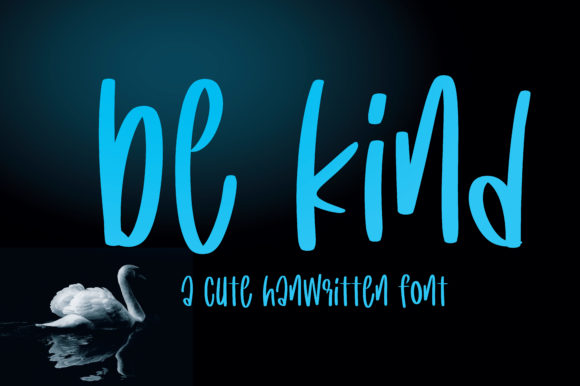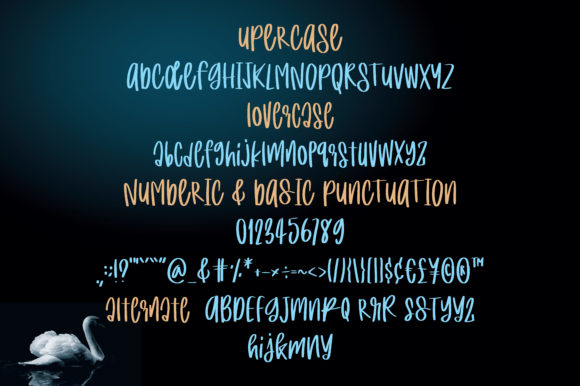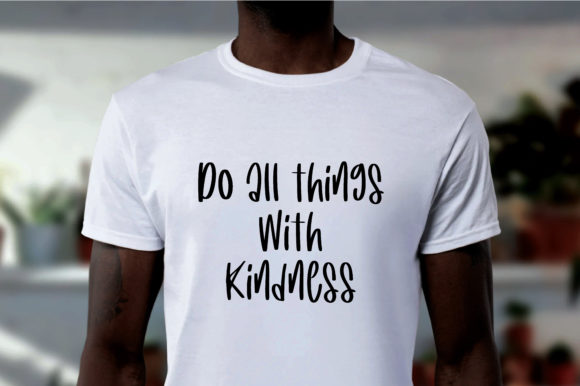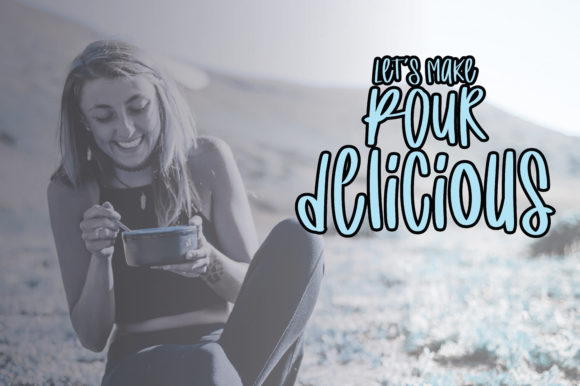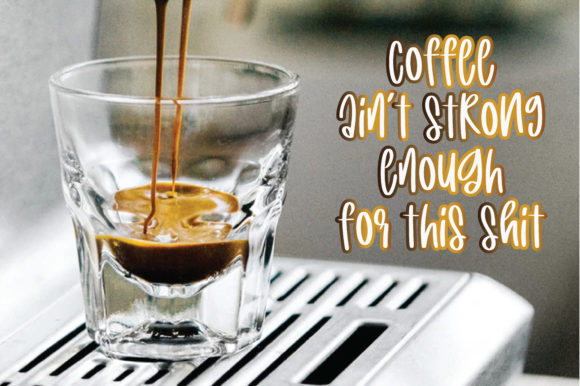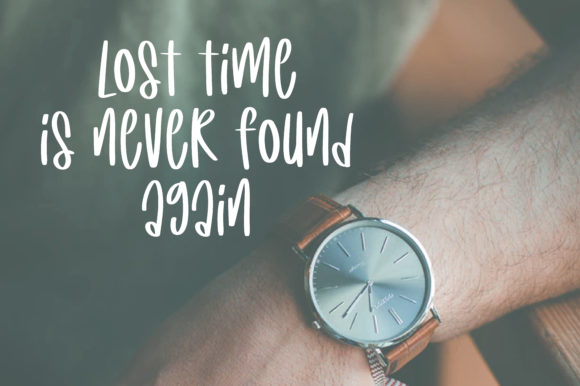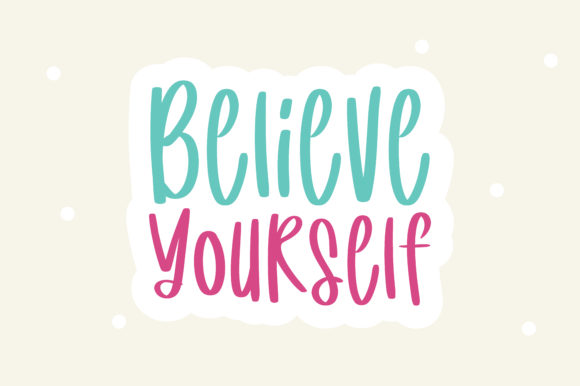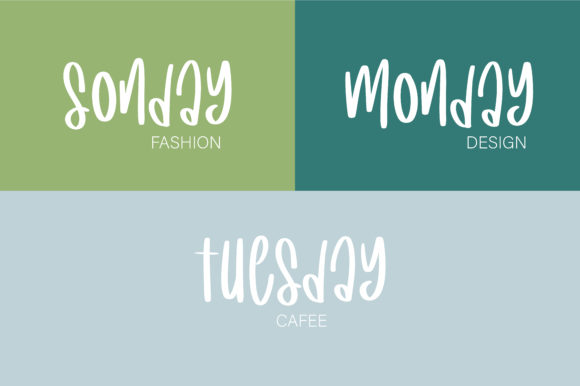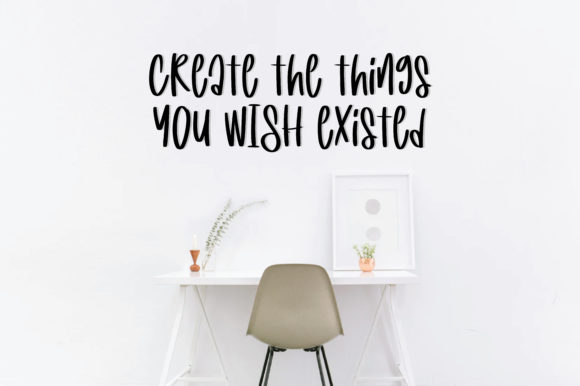
Be Kind Font
About Be Kind Font
Be kind is a cheerful and friendly handwritten font. It will elevate a wide range of design projects to the highest level, be it branding, headings, wedding designs, invitations, signatures, logos, labels, and much more!